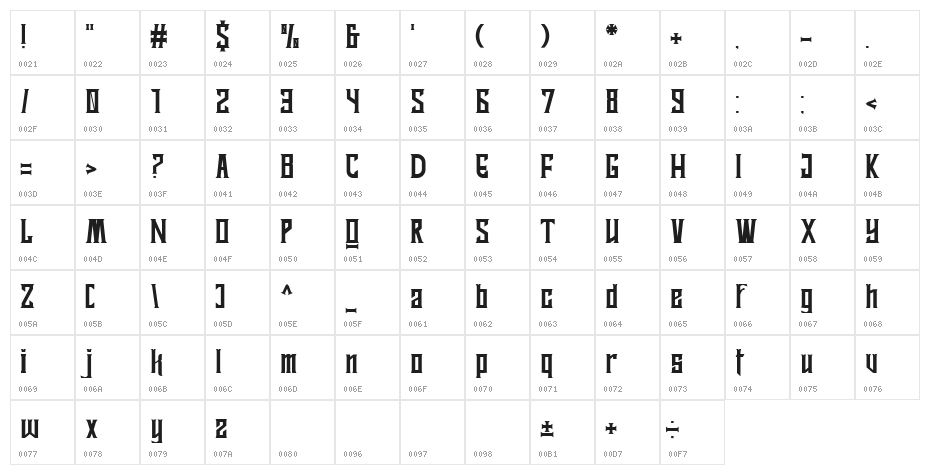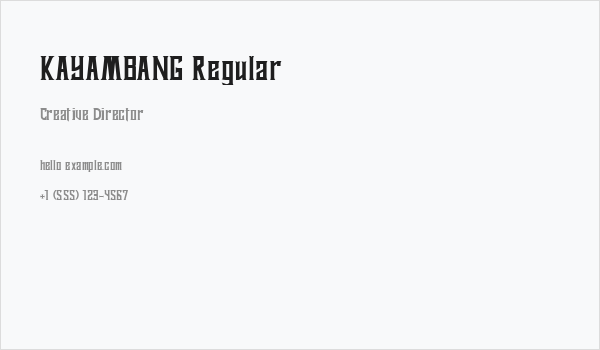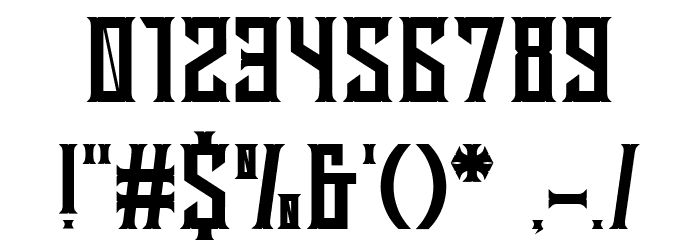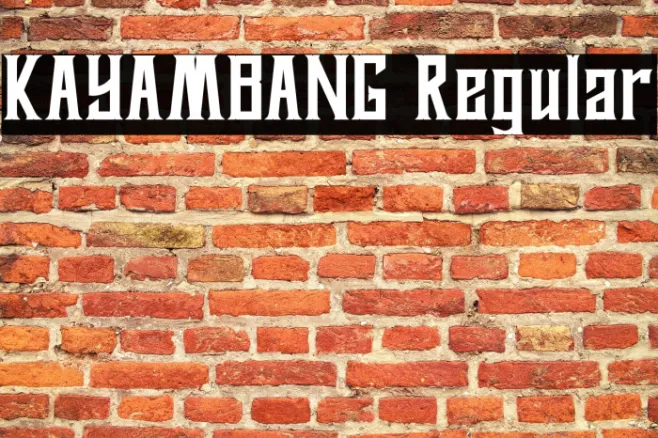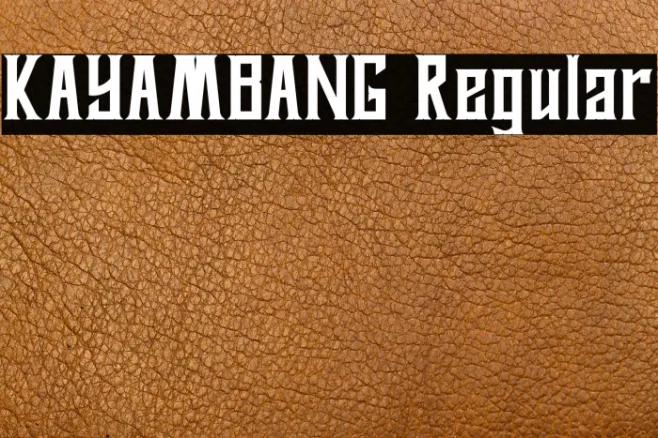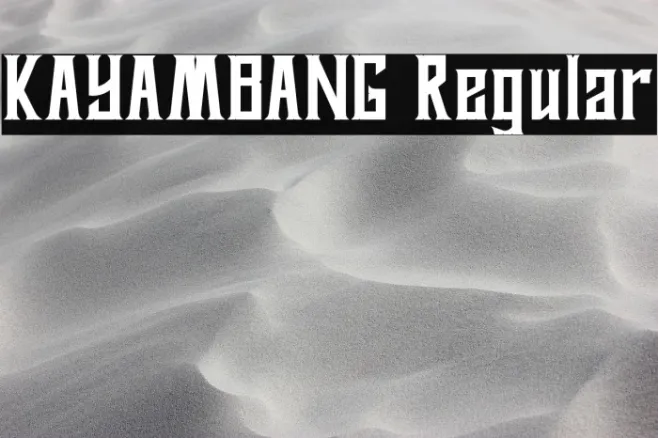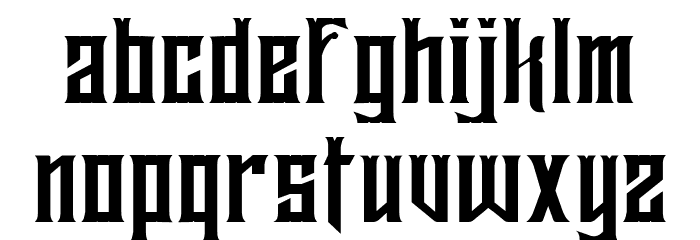
KAYAMBANG Regular Font
KAYAMBANG Regular Description
This font features a bold and striking design with a strong geometric influence. The characters are crafted with sharp angles and a distinct blocky appearance, giving it a modern and edgy feel. The uppercase letters are particularly prominent, with a uniform height and width that create a cohesive look. The lowercase letters maintain the same angular style, providing consistency across the typeface. Numbers and special characters are designed to match the overall aesthetic, ensuring versatility in various applications. The font's unique style makes it ideal for projects that require a bold statement.